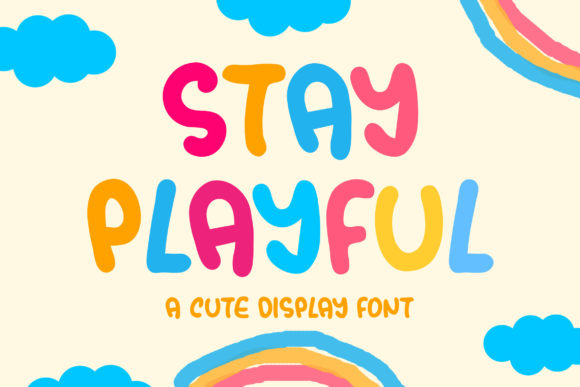
Introducing Stay Playful Font, the ultimate display font that will bring your children's stories to life! This adorable and vibrant font exudes a sense of playfulness and authenticity, making it the perfect choice for captivating book covers, imaginative posters, and any school project that demands a touch of whimsy.
Dive into a world of creativity with Stay Playful's charmingly chunky letters. Each character dances across the page, inviting readers of all ages to embark on an enchanting journey. Its playful spirit will ignite your imagination, inspiring you to craft stories and designs that spark joy and wonder.
With Stay Playful Font, your children's book covers will become irresistible, promising hours of captivating reading adventures. Its bold and cheerful presence will draw children in, igniting their curiosity and setting the stage for unforgettable tales. Unleash your creativity and let Stay Playful's playful charm transform your designs into vibrant masterpieces.